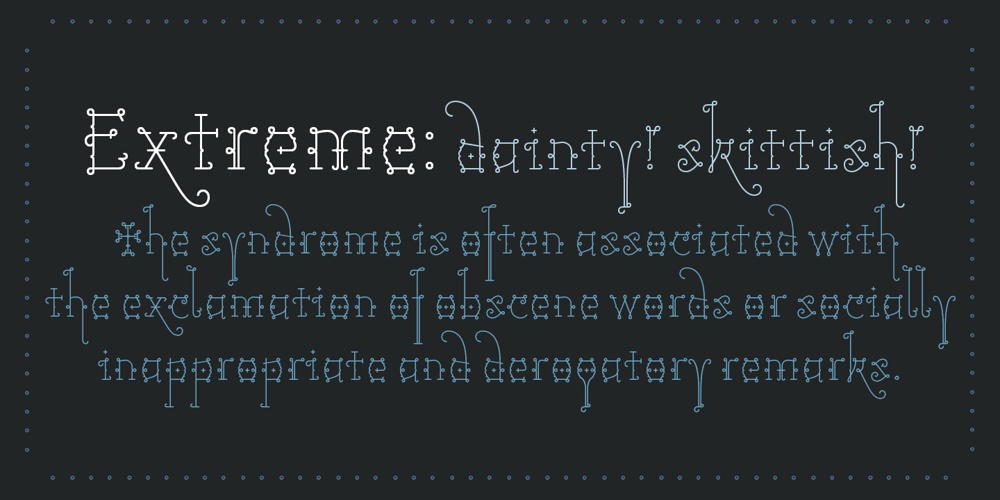
Tourette
Tourette font
Tourette Font Family was designed by Marcus Leis Allion, Jonathan Barnbrook and published by Barnbrook Fonts. Tourette contains 2 styles and family package options. Tourette draws inspiration from 19th century French light slab serifs. This area of typography is relatively unexplored in contemporary design. Tourette includes two versions, Normal and Extreme. Normal is simple, delicate and legible, whereas Extreme is full of little flourishes that grant an exquisite, slightly frivolous, feel to the weight. Tourette is a progression of the Expletive Script family.